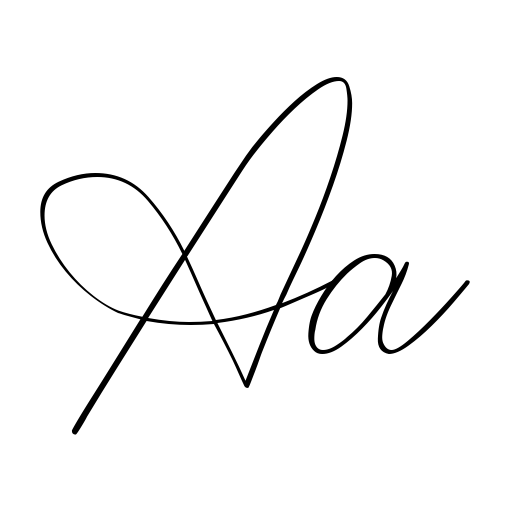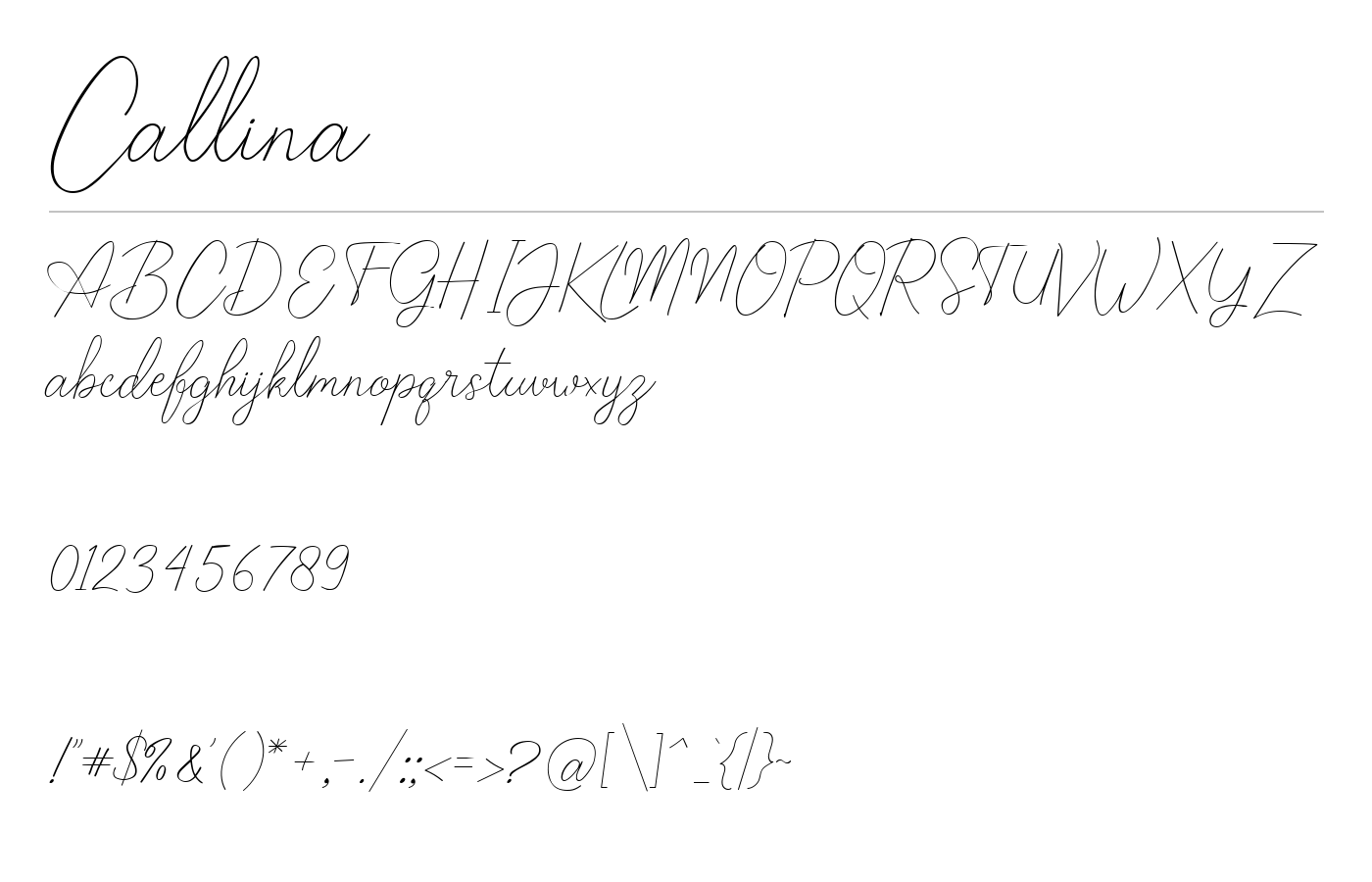
Callina is a delicate and elegant script font characterized by its thin, flowing strokes and graceful letterforms, evoking a hand-written, calligraphic feel. Its slender, airy design makes it perfect for sophisticated branding, wedding invitations, and refined editorial work where a touch of femininity and charm is desired. This font shines in settings that call for a subtle, stylish, and personable appearance without overpowering the overall design.
Callina Font
About Callina Font
| Font family | Callina Font |
| Designer | Cahyo Surendro @ Jos Gandos |